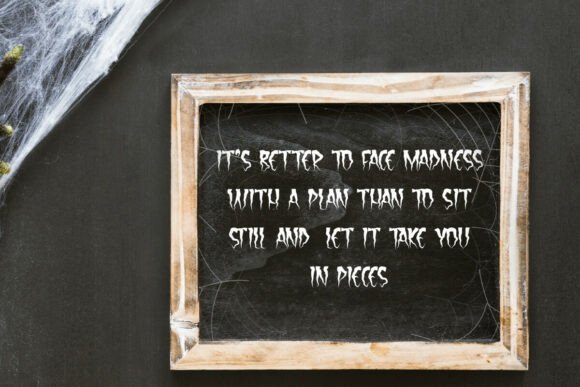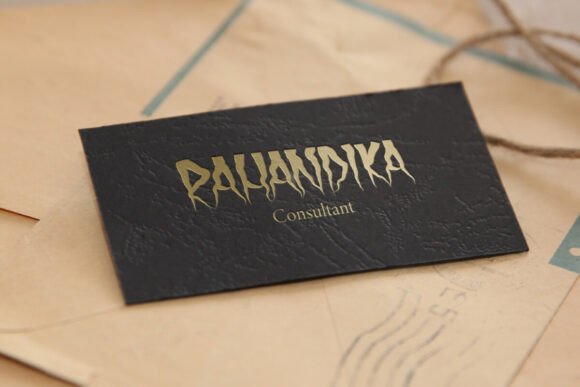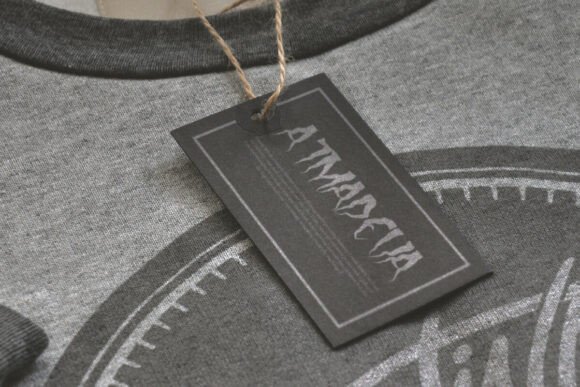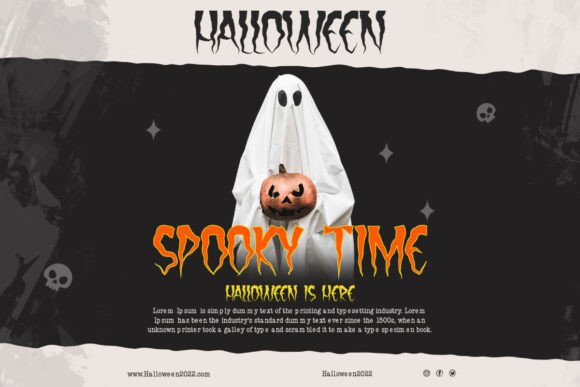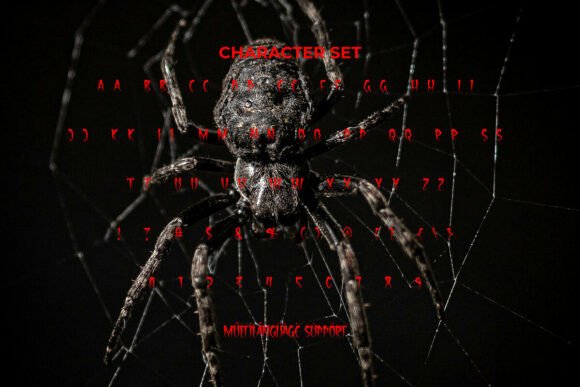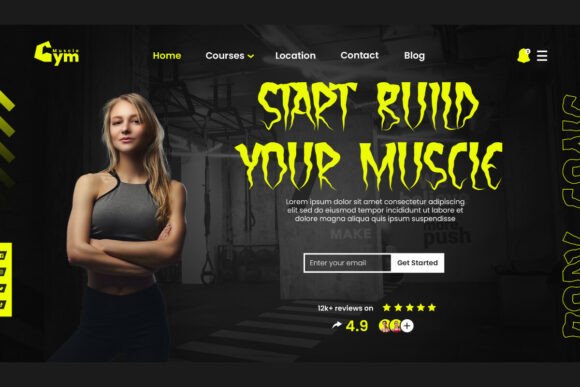
Introduction to Izrail Font
Have you ever been working on a creative project, pouring your heart and soul into it, only to feel like something is missing? That’s when you stumble upon the perfect design resource – a font that captures the essence of your vision. For those who crave a touch of darkness and mystery in their work, I’m excited to introduce you to the Izrail Font, a blackmetal spooky display font that’s sure to electrify your designs.
This unique font is a masterclass in balance, blending sharp, jagged lines with unusual curves to create a sense of foreboding and unease. Whether you’re designing album covers, blog headers, or book covers, the Izrail Font is the perfect tool to evoke a sense of mystery and intrigue. With its high-quality design and transparent background, this font is a valuable addition to any designer’s toolkit, offering endless possibilities for creative expression.
Key Features of Izrail Font
- High-quality design resource ideal for creative projects, offering a unique and stylish aesthetic.
- Unique characteristics, including a bold and modern design style, making it an excellent choice for creative projects.
Honest Review: Izrail Font
I recently stumbled upon the Izrail Font, and I must say it’s been a game-changer for my design projects. As a designer, I’m always on the lookout for high-quality fonts that can elevate my work and add a touch of sophistication. The Izrail Font delivers just that.
Here’s what I love about it:
- ✨ Beautifully crafted letters that exude elegance and sophistication
- ✨ Perfect for creative projects that require a touch of luxury
- ⚠️ Limited character set, which may not be ideal for projects that require a wide range of characters
- ⚠️ Not suitable for body text, as it’s a bit too ornate for everyday reading
Overall, I’m thoroughly impressed with the Izrail Font. While it may have its limitations, it’s a high-quality design resource that’s perfect for adding a touch of luxury to my creative projects. I highly recommend it to designers looking to elevate their work with a sophisticated font.
Tips for Getting the Most Out of Izrail Font
For the best results, use the Izrail Font in combination with other design elements, such as images and graphics. Experiment with different font sizes and styles to create a visually appealing design. Additionally, consider using the Izrail Font with a transparent background to create a seamless design.
The Izrail Font is commonly used in various creative projects, including logos, business cards, and brochures. It’s also used in digital design projects, such as website headers and social media graphics. This versatile font is ideal for designers who want to add a touch of sophistication to their designs.